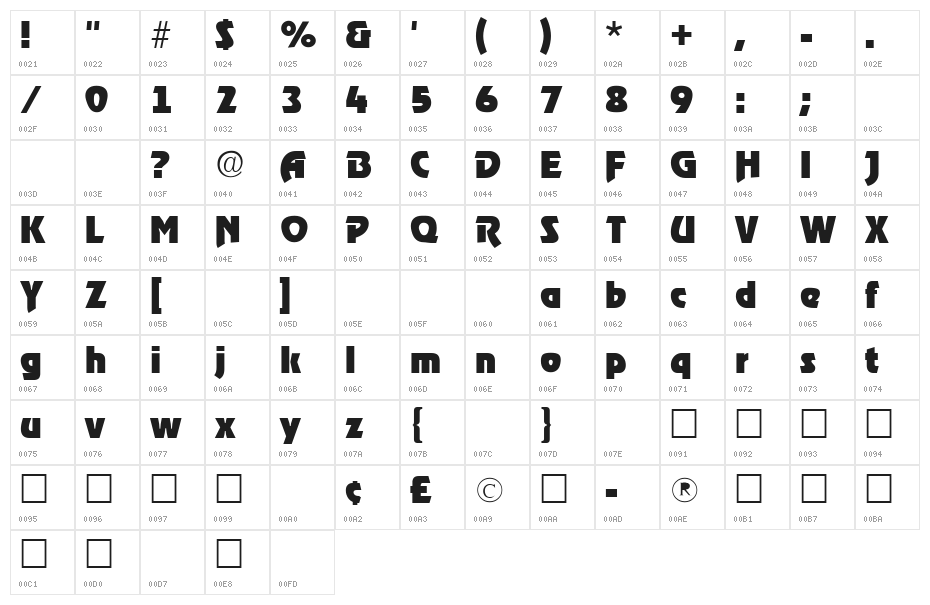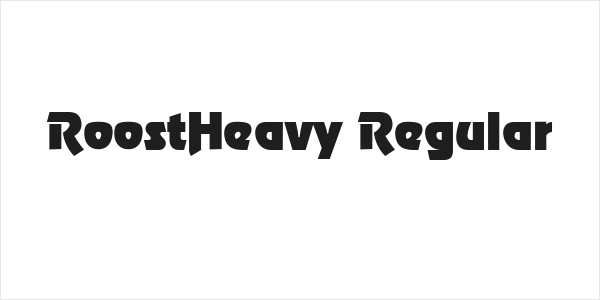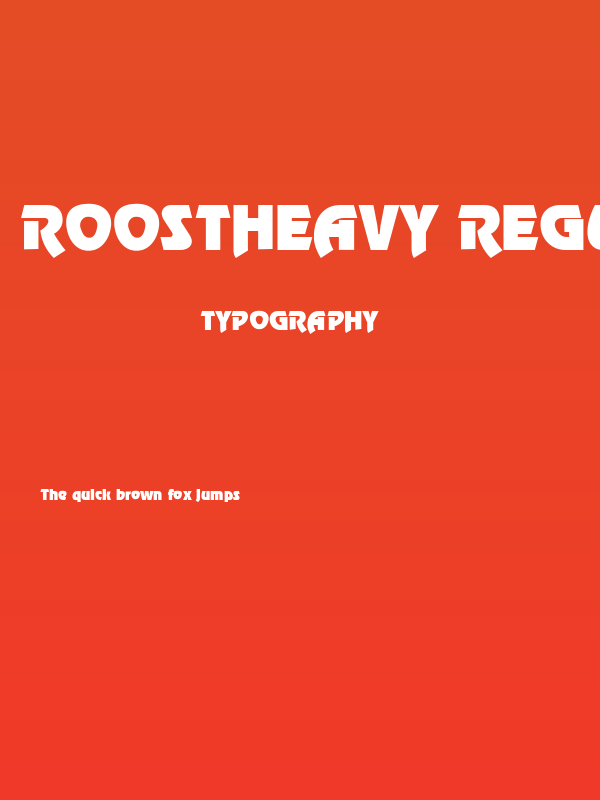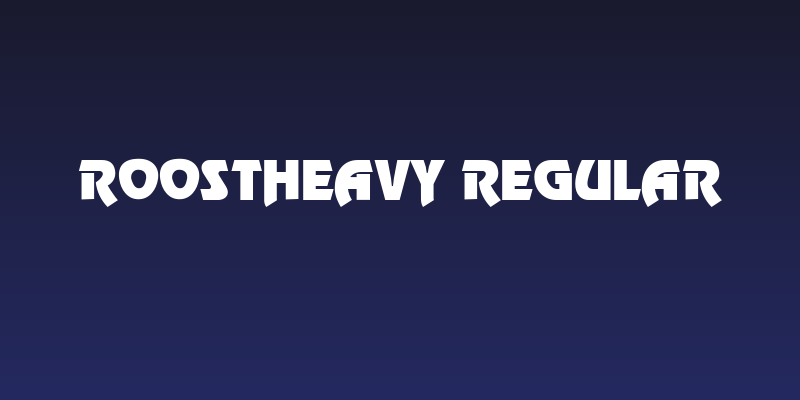
RoostHeavy Regular Font
RoostHeavy Regular Description
This font exhibits a bold and striking design with a heavy weight, making it ideal for attention-grabbing headlines and impactful statements. The characters are crafted with sharp, angular edges and a geometric style that conveys strength and modernity. The uppercase letters are particularly prominent, with a strong presence that commands attention. The lowercase letters maintain the boldness while offering a slightly softer appearance. Numerals and special characters are consistent with the overall robust aesthetic, ensuring uniformity across different uses. The font's unique style is suitable for projects that require a powerful visual impact, such as branding, posters, and advertising materials.